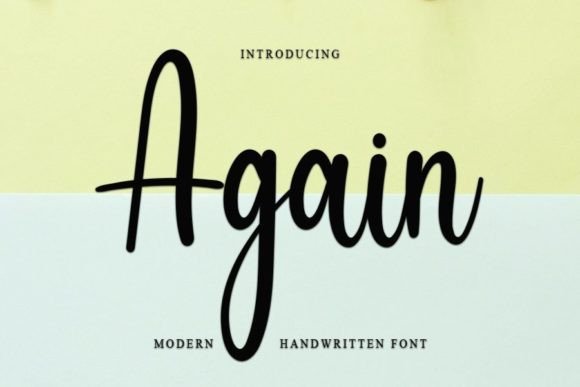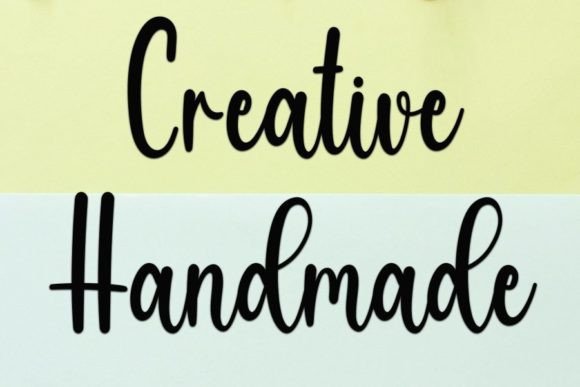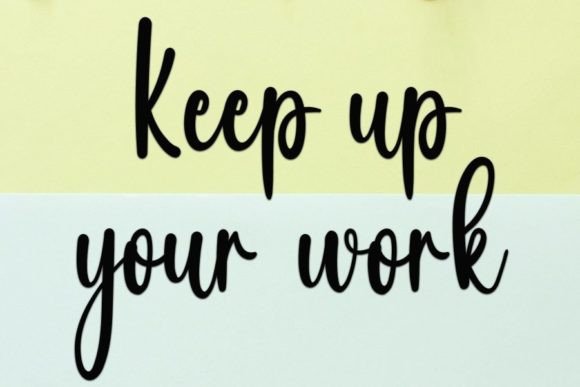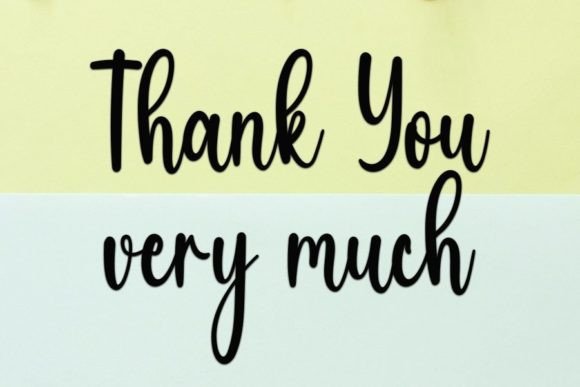
Again Font
“Once again, immerse yourself in the enchanting world of elegant typography with ‘Again,’ a remarkable handwritten font that seamlessly blends beauty and sophistication. This font isn’t just a mere collection of letters; it’s a visual poetry, exuding an aura of grace and style. Its distinctive, yet timeless design sets it apart, making it the perfect choice for a myriad of creative projects, ranging from invitations and greeting cards to branding materials and digital art.
‘Again’ captivates the beholder with its meticulously crafted characters, each stroke bearing the artist’s careful touch. The letters flow seamlessly, showcasing a natural handwritten quality that feels both personal and refined. Its curves are graceful, and its lines are fluid, reflecting the essence of true craftsmanship. This font isn’t just a tool; it’s an experience, allowing you to infuse your creations with a touch of sophistication and charm.
The beauty of ‘Again’ lies not only in its aesthetic appeal but also in its versatility. Whether you’re designing a wedding invitation for an intimate celebration or creating a professional logo for a high-end boutique, this font effortlessly adapts to your needs. Its readability remains impeccable even at smaller sizes, ensuring your message is conveyed with clarity and style. Moreover, the font’s adaptability extends to various design software, making it a seamless choice for both digital and print projects.
Fall in love with the endless possibilities that ‘Again’ offers. Let your imagination run wild as you envision the exquisite designs you can create – from elegant stationery to captivating social media posts. Whether you’re a seasoned graphic designer or an aspiring artist, this font serves as a valuable addition to your creative toolkit, elevating your work to new heights of sophistication.
What truly sets ‘Again’ apart is its ability to evoke emotions and tell stories. Imagine a handwritten love letter, its words delicately crafted in this font, conveying deep emotions with every stroke. Picture a vintage-inspired wedding invitation, transporting recipients to a bygone era of romance and glamour. With ‘Again,’ your designs transform into experiences, leaving a lasting impression on anyone who encounters them.
In conclusion, ‘Again’ is more than just a font; it’s an embodiment of elegance, a testament to the power of artistic expression. Embrace its distinct and beautiful handwritten style, and let it breathe life into your favorite projects. Fall in love with the art of typography all over again, and create designs that are not just visually appealing but also profoundly meaningful. Your creative journey reaches new horizons with ‘Again’ – where timeless style meets unparalleled beauty, resulting in spectacular designs that leave a lasting legacy.”